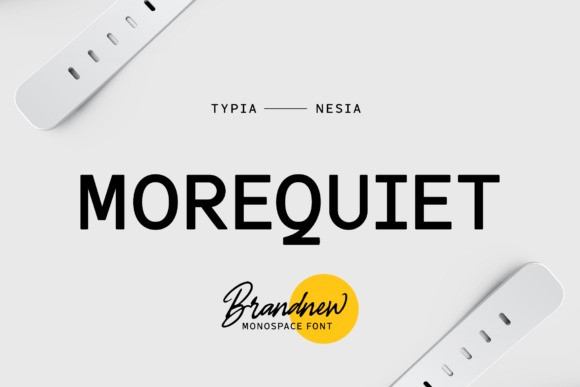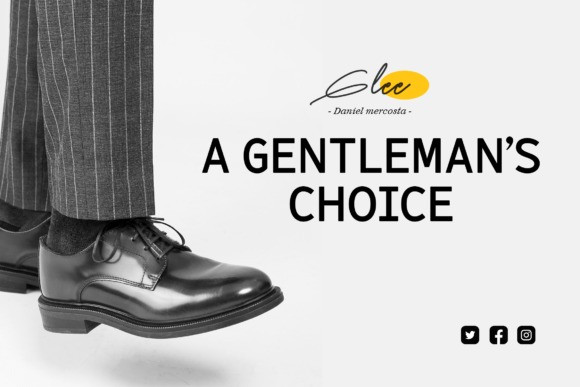
Morequiet Font
Morequiet – Modern Monospace Sans Serif Font – Minimal / Clean Logo Branding – Typewriter Sans Font
Morequiet is perfect for your upcoming projects such as classic logo and branding, classic editorial design, magazine, fashion promotional, ticket design, stationery design, blog design, advertising design, music, men’s skincare, art quote, home decor, book/novel cover title, special events, and any more.